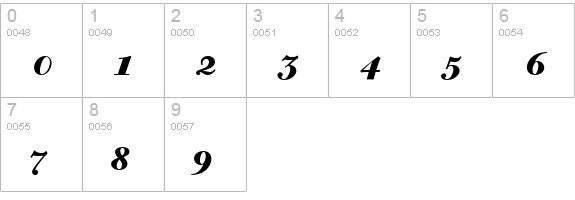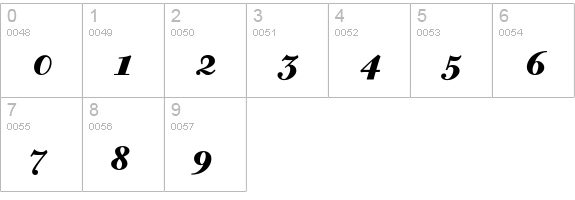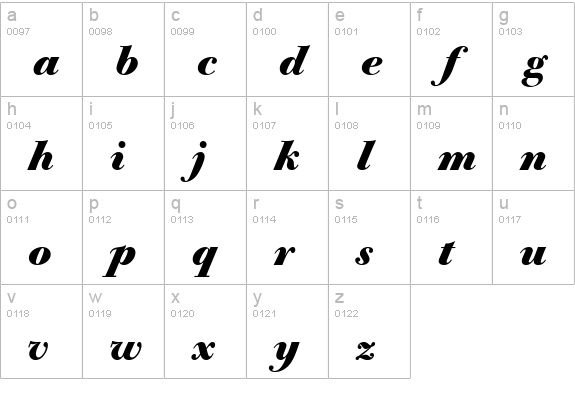
Bodoni Old Face BE Bold Italic Oldstyle Figures Font Details
Bodoni Old Face BE Bold Italic Oldstyle Figures is a strong, high-contrast, italic variant in the Bodoni typeface family \xE2\x80\x94 well suited to headlines, attention-grabbing titles, and strong calls-to-action.
Bodoni Old Face BE Bold Italic Oldstyle Figures font exudes elegance and sophistication with its classic and timeless design. The bold italic style adds a touch of drama and flair to any text, making it perfect for headlines, titles, and other prominent uses. The oldstyle figures give this font a vintage charm that is sure to captivate readers. What makes Bodoni Old Face BE Bold Italic Oldstyle Figures font even more appealing is that it is available for free download at FontsMarket.com. This means that you can easily access this beautiful font and use it in your projects without any cost. Whether you're designing a poster, creating a website, or working on a branding project, this font is a versatile choice that will elevate your work to the next level.